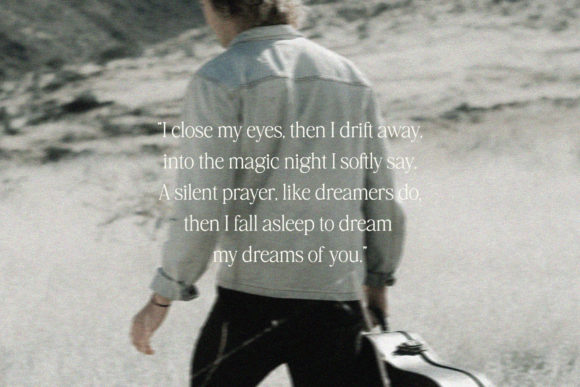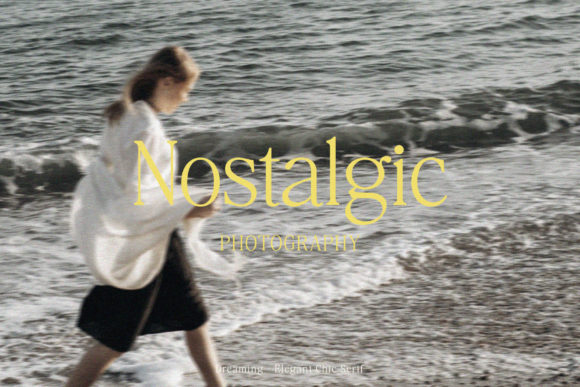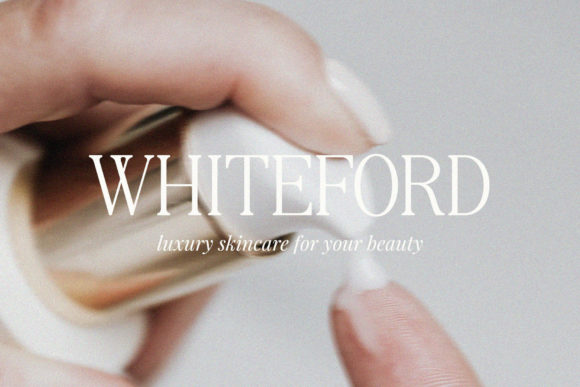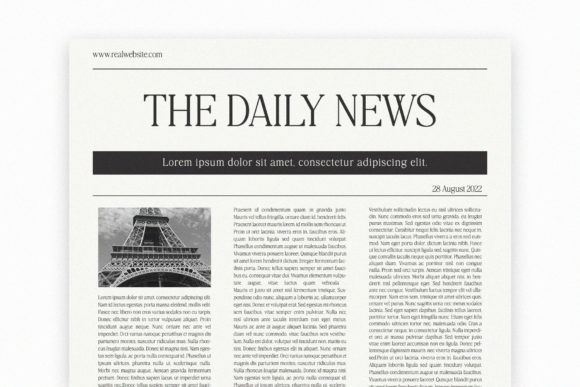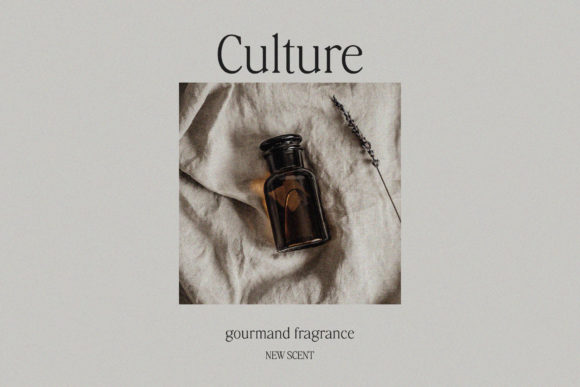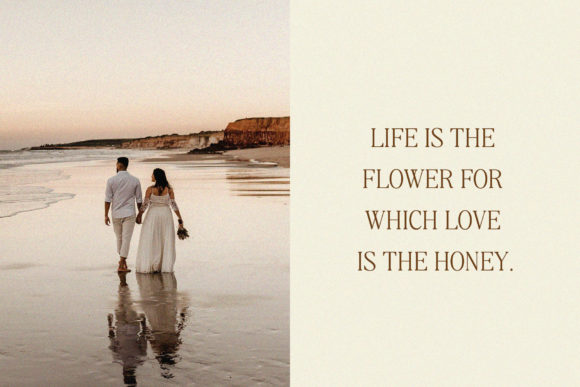
Dreaming Font: Elevate Your Designs with a Touch of Vintage Elegance
In the world of typography, fonts play a crucial role in conveying the tone and personality of a design. For designers and crafters looking to add a touch of vintage elegance to their work, the Dreaming Font is an excellent choice. This stylish and vintage serif font is perfect for a wide range of applications, from book texts and documentation to business reports, magazines, and corporate design.
The Characteristics of Dreaming Font
Dreaming Font boasts a classic serif design with a unique twist. Its vintage flair makes it stand out from more traditional serif fonts, giving it a distinctive look that’s both nostalgic and sophisticated. The font features:
- Classic Serif Design: Dreaming Font’s serif design is reminiscent of traditional printing, making it perfect for applications where a touch of elegance is desired.
- Vintage Flair: The font’s vintage elements give it a unique character that’s perfect for designs that require a nostalgic or retro feel.
- High Legibility: Despite its ornate design, Dreaming Font remains highly legible, making it suitable for body text and other large blocks of text.
Use Cases for Dreaming Font
Dreaming Font’s versatility makes it suitable for a wide range of applications, including:
- Book Texts and Documentation: The font’s classic design and high legibility make it perfect for lengthy texts, such as novels, textbooks, and technical documentation.
- Business Reports and Correspondence: Add a touch of professionalism to your business reports, letters, and other correspondence with Dreaming Font’s elegant design.
- Magazines and Newspapers: Use Dreaming Font to give your publication a unique and sophisticated look that sets it apart from the competition.
- Posters and Advertisements: The font’s vintage flair makes it perfect for eye-catching posters and advertisements that require a touch of nostalgia or retro charm.
- Multimedia and Corporate Design: Use Dreaming Font to create a cohesive brand identity across various platforms, including websites, social media, and marketing materials.
Why Choose Dreaming Font?
With so many fonts available, why choose Dreaming Font? Here are just a few reasons:
- Unique Design: Dreaming Font’s vintage flair sets it apart from more traditional serif fonts, giving your designs a distinctive look.
- Versatility: The font’s suitability for a wide range of applications makes it a valuable addition to any designer’s toolkit.
- High Quality: Dreaming Font is crafted with attention to detail, ensuring a high level of quality and legibility.
Tips for Using Dreaming Font
To get the most out of Dreaming Font, follow these tips:
- Pair with Sans-Serif Fonts: Combine Dreaming Font with sans-serif fonts to create a striking contrast and add visual interest to your designs.
- Experiment with Colors: Try pairing Dreaming Font with different colors to create a unique look that complements your brand or design.
- Use for Headings and Body Text: Take advantage of Dreaming Font’s high legibility by using it for both headings and body text.
In conclusion, Dreaming Font is a versatile and stylish serif font that’s perfect for designers and crafters looking to add a touch of vintage elegance to their work. Its unique design, high legibility, and suitability for a wide range of applications make it a valuable addition to any designer’s toolkit.